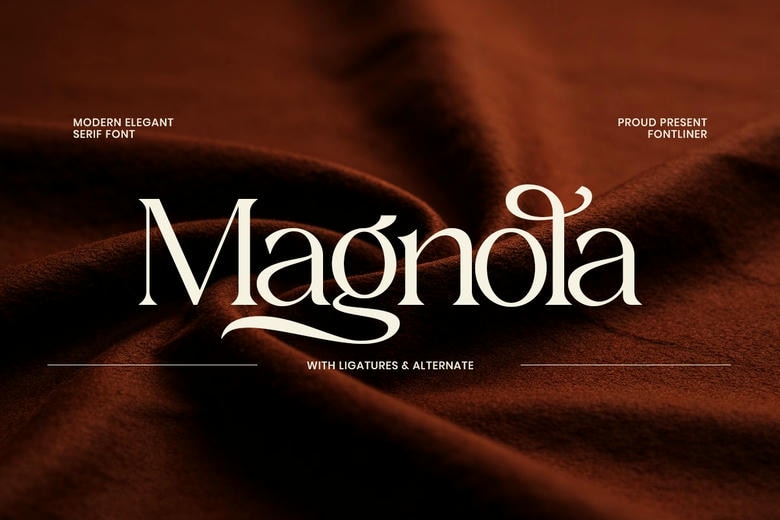
Magnola Font
Magnola is a contemporary classy serif typeface that incorporates both traditional elegance and artistic style. Its subtle but assertive look renders it ideal in the development of classic and lavish visual arrangements. Magnolia is a versatile design that can be used in a variety of design applications, including editorial layouts and fashion branding, as well as wedding invitations and luxury packaging.
Be it creating a high-end brand or creating a romantic aesthetic, Magnolia provides a perfect balance of modernity and traditional beauty, which makes it an excellent option in high-end design projects.
Magnola Serif Font